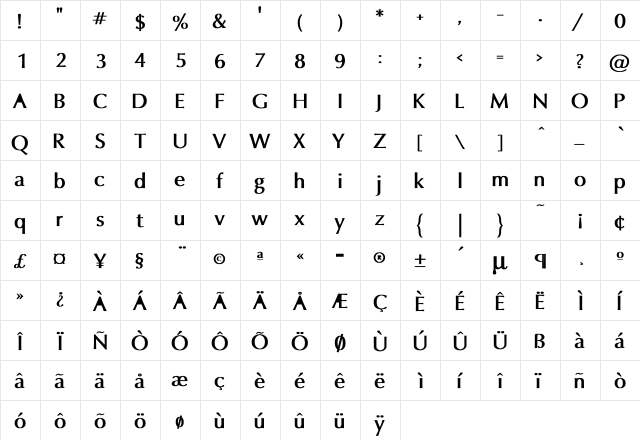
Oxford Bold Bold
Design Context for Oxford Bold Typeface
Oxford Bold offers clean, dependable letterforms without strong stylistic allegiance, making it a practical choice for designers who need flexibility. The heavy weight commands attention and anchors typographic hierarchies.